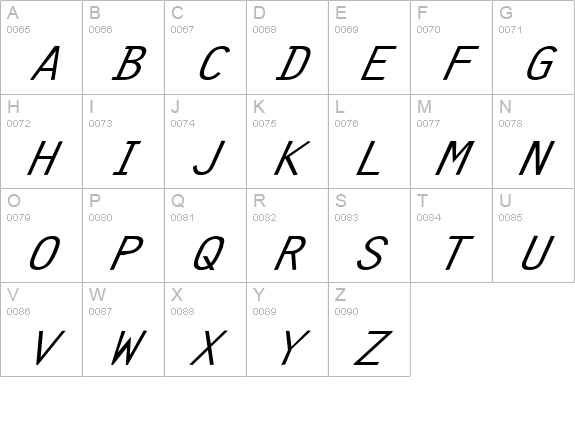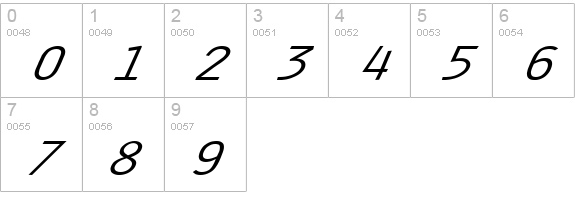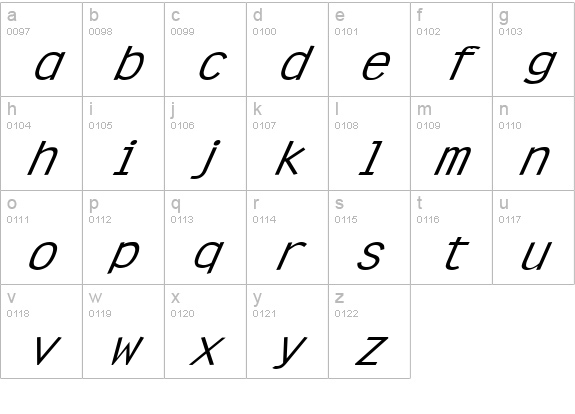
Clean-Extended Italic is a distinctive, extended-width, italic variant in the Clean typeface family \xE2\x80\x94 well suited to design and typography projects.
Clean-Extended Italic is a modern and sleek font that exudes sophistication and elegance. Its italicized design adds a touch of flair to any project, making it perfect for branding, editorial design, and more. The clean lines and extended letterforms give this font a unique and contemporary look that is sure to make your text stand out. Best of all, Clean-Extended Italic is completely free to download at FontsMarket.com. Whether you're a designer looking to add a stylish touch to your work or a content creator searching for a versatile font, Clean-Extended Italic is the perfect choice. Download it today and elevate your designs with this beautiful and freely available font.